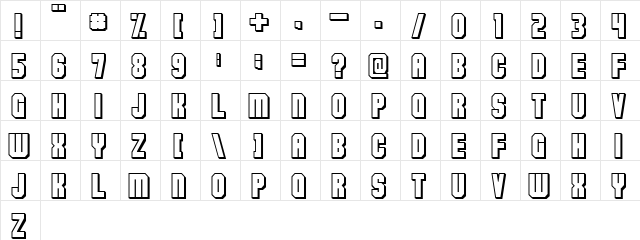
Flashback version 3 Regular
Design Context for Flashback version 3 Typeface
Flashback version 3 is a composed and adaptable typeface that performs quietly and consistently across a wide range of design contexts.